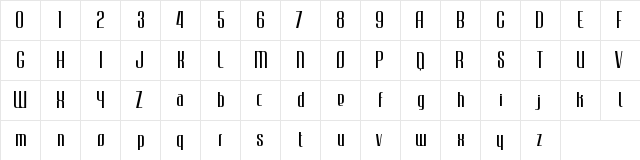
JECR Font Light Regular
Design Context for JECR Font Light Typeface
JECR Font Light is a composed and adaptable typeface that performs quietly and consistently across a wide range of design contexts. Its slender proportions lend an understated elegance to any composition.